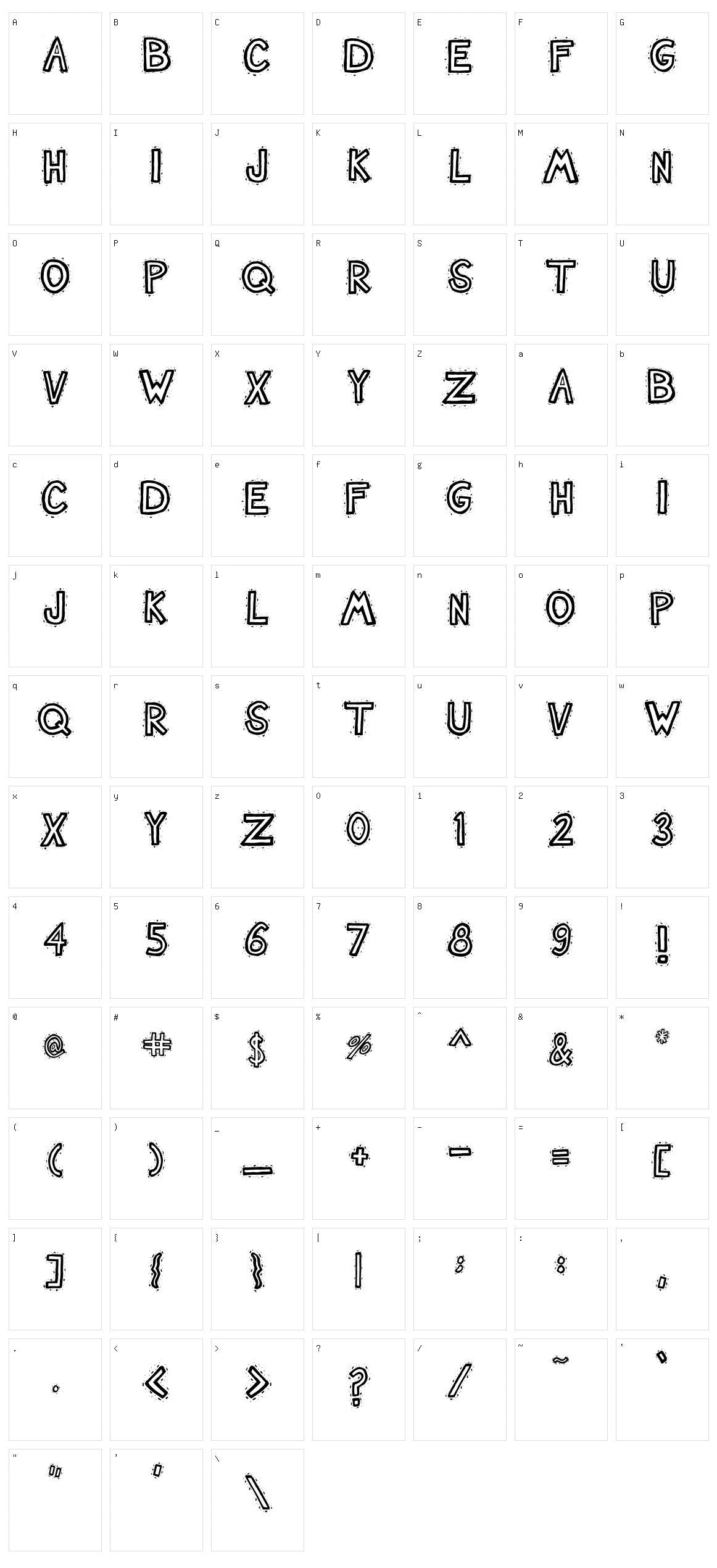
Thanks for downloading Nash. Nash is a font I created after looking at my Dalmatian one night.
Hence the name Nash, because his name is Nashville Tucker Blue. So it's a bold spotted little
number that's all caps.